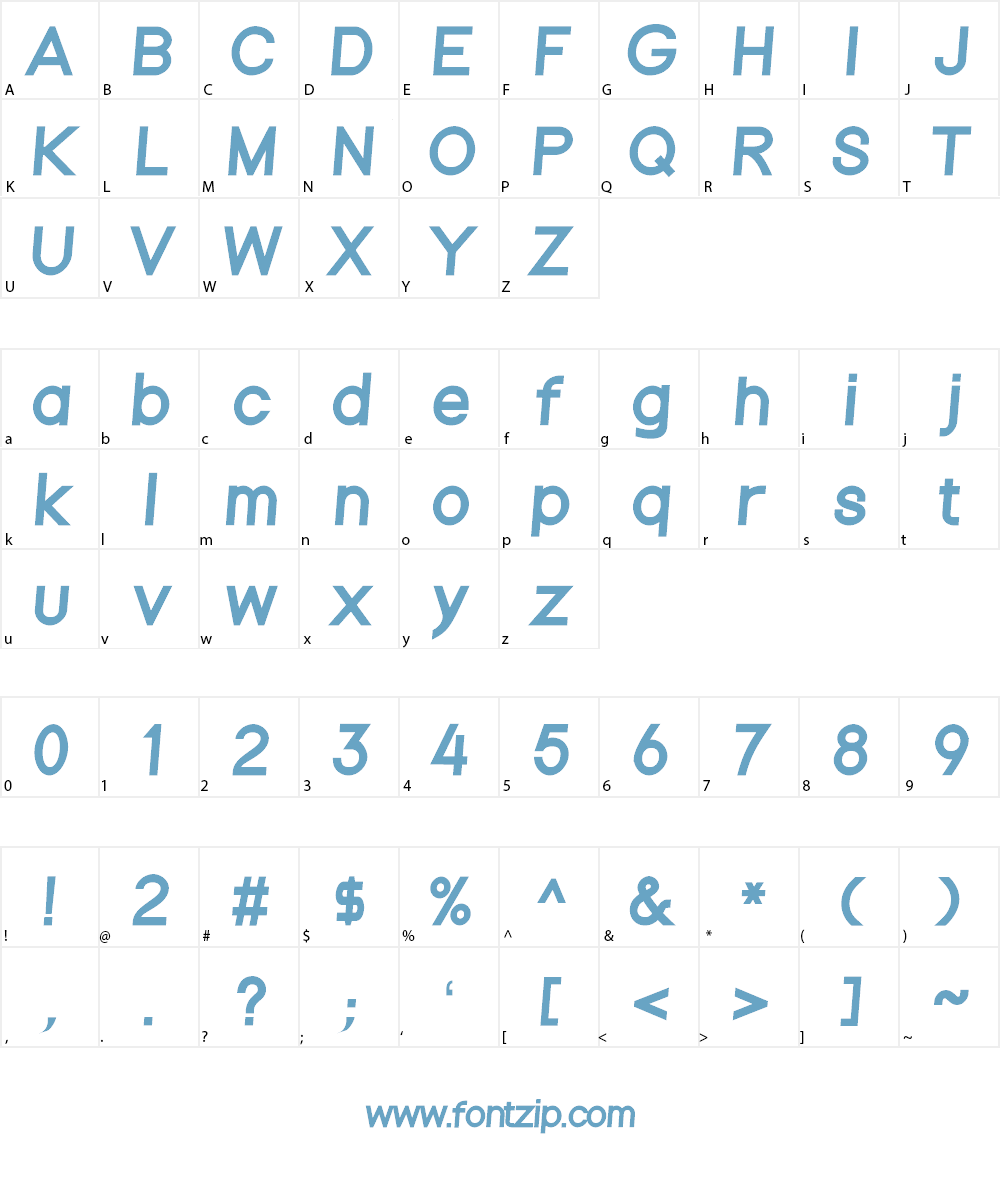
This font series is sort of a sequel to our earlier release, Poland Cannot Into. It is made up of mainly silly or weird variations of Hussar and Nordica.